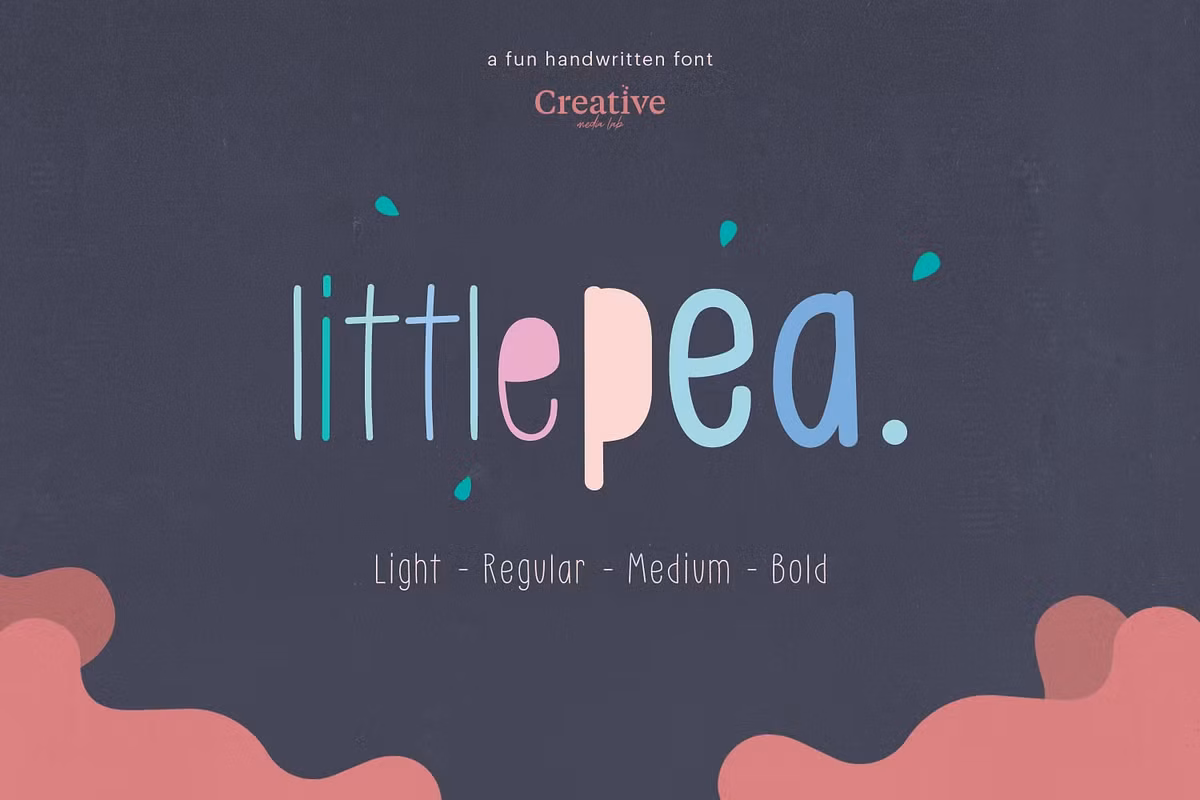
Little Pea - Handwritten Font Free Download
Bring a touch of playful charm to your designs with the Little Pea - Handwritten Font Free Download — an adorable and friendly script font that captures the innocence and joy of hand-drawn lettering. With its soft strokes and cheerful personality, Little Pea is perfect for kids' designs, baby shower invites, cute branding, planners, and fun social media graphics.
This font feels like a warm hug on paper — casual, approachable, and full of heart. Whether you're designing for a handmade shop, a child-focused project, or simply want your typography to smile back at the viewer, Little Pea is your go-to choice.